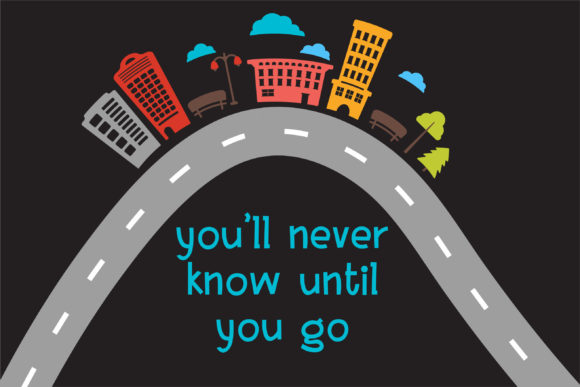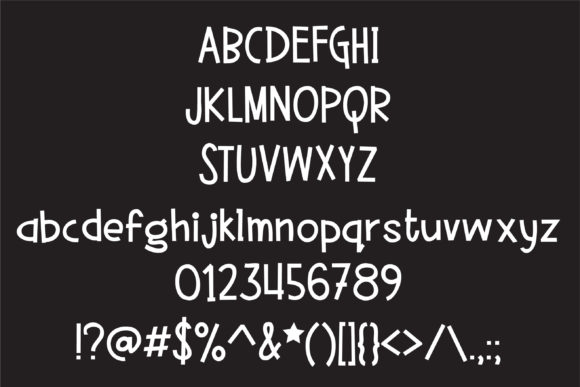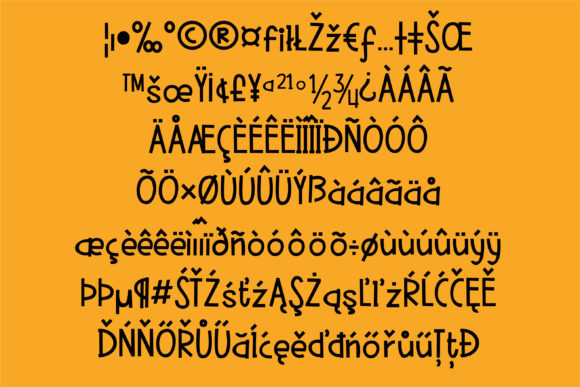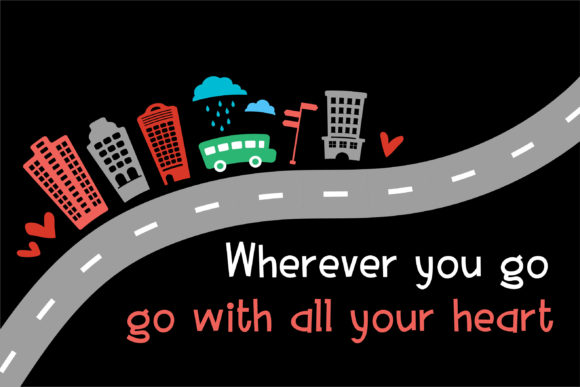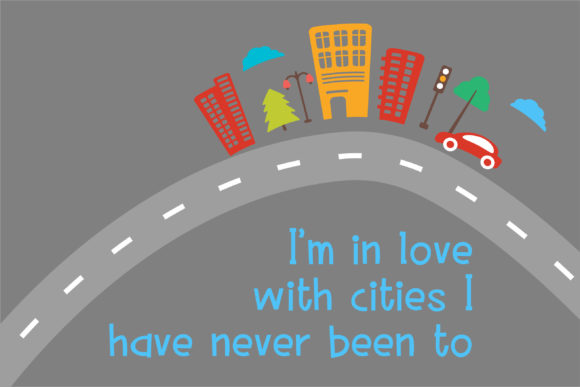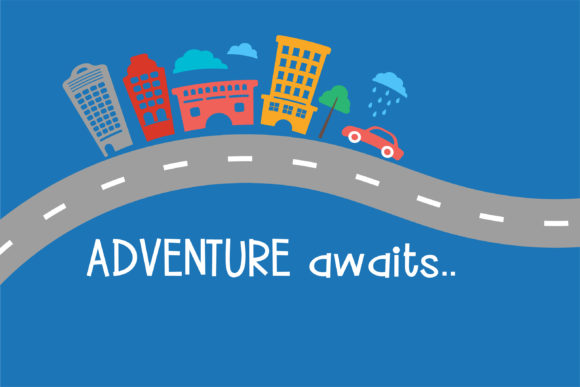
ZP Urban Myth Font
About ZP Urban Myth Font
Urban Myth is a fund and timeless handwritten font. Use this gorgeous and unique font to bring any DIY project to life!